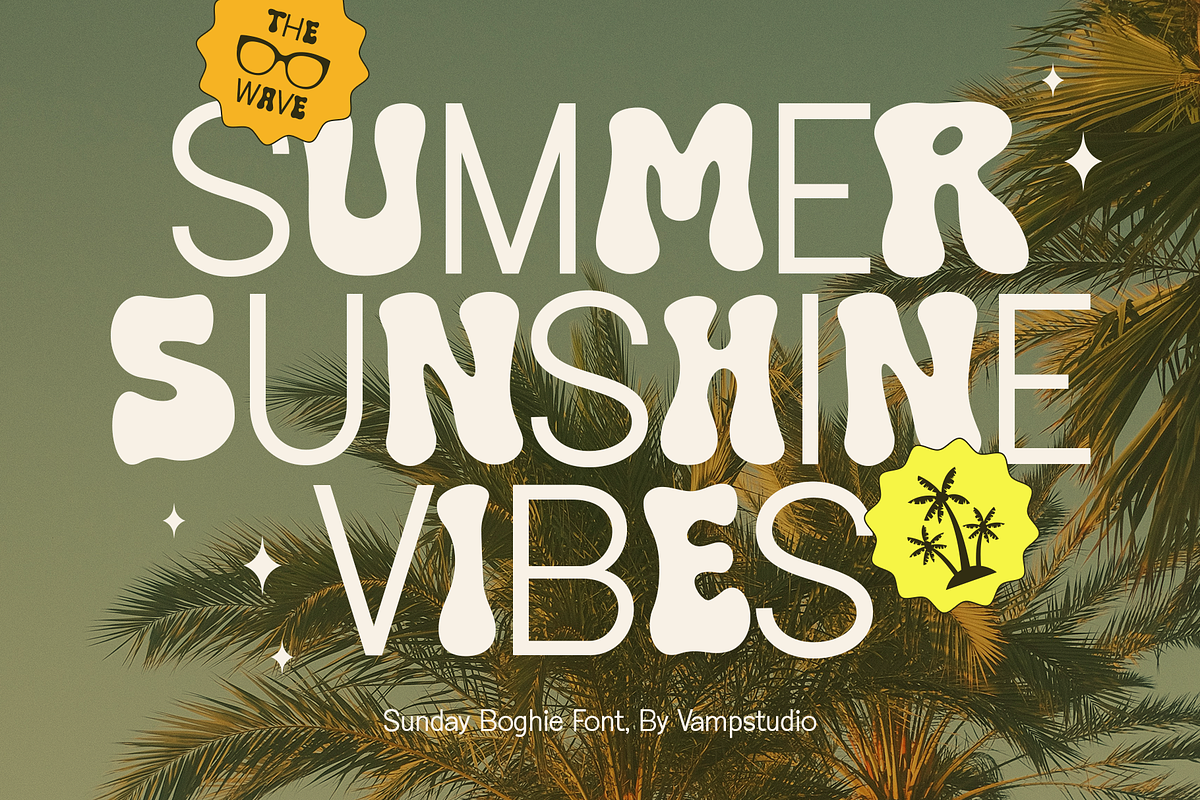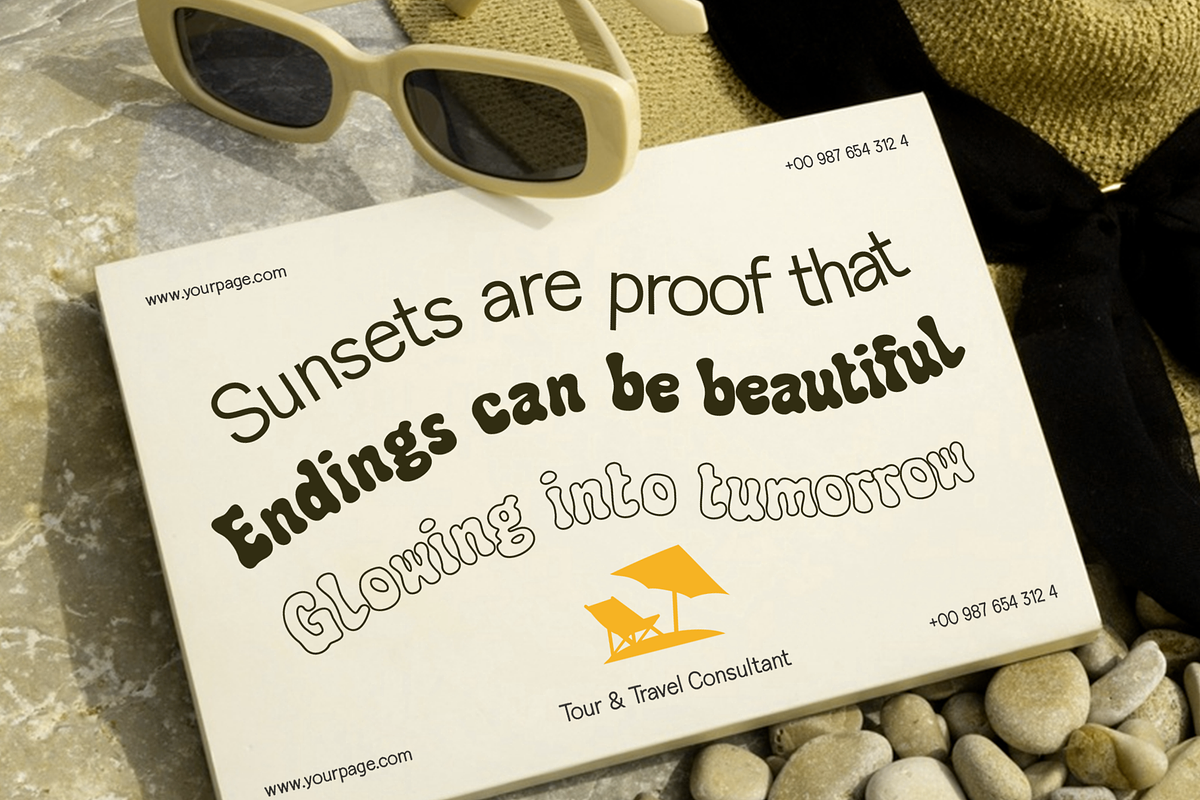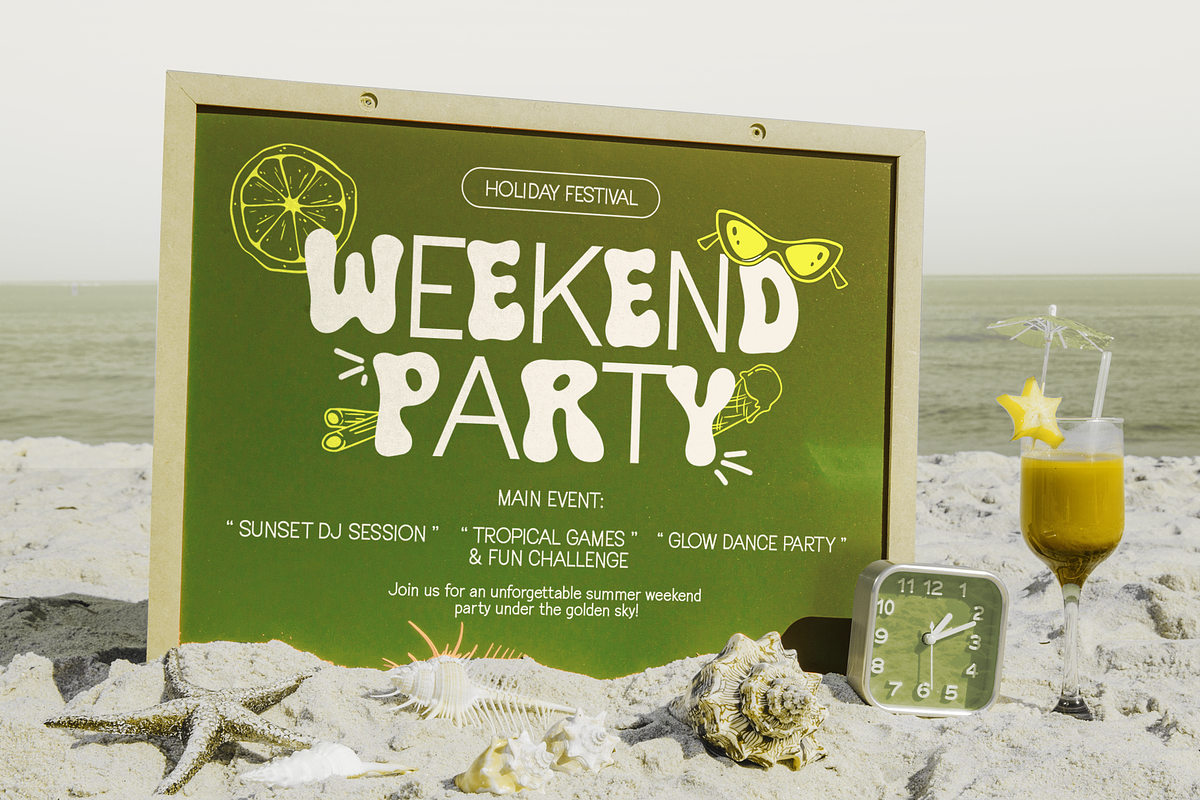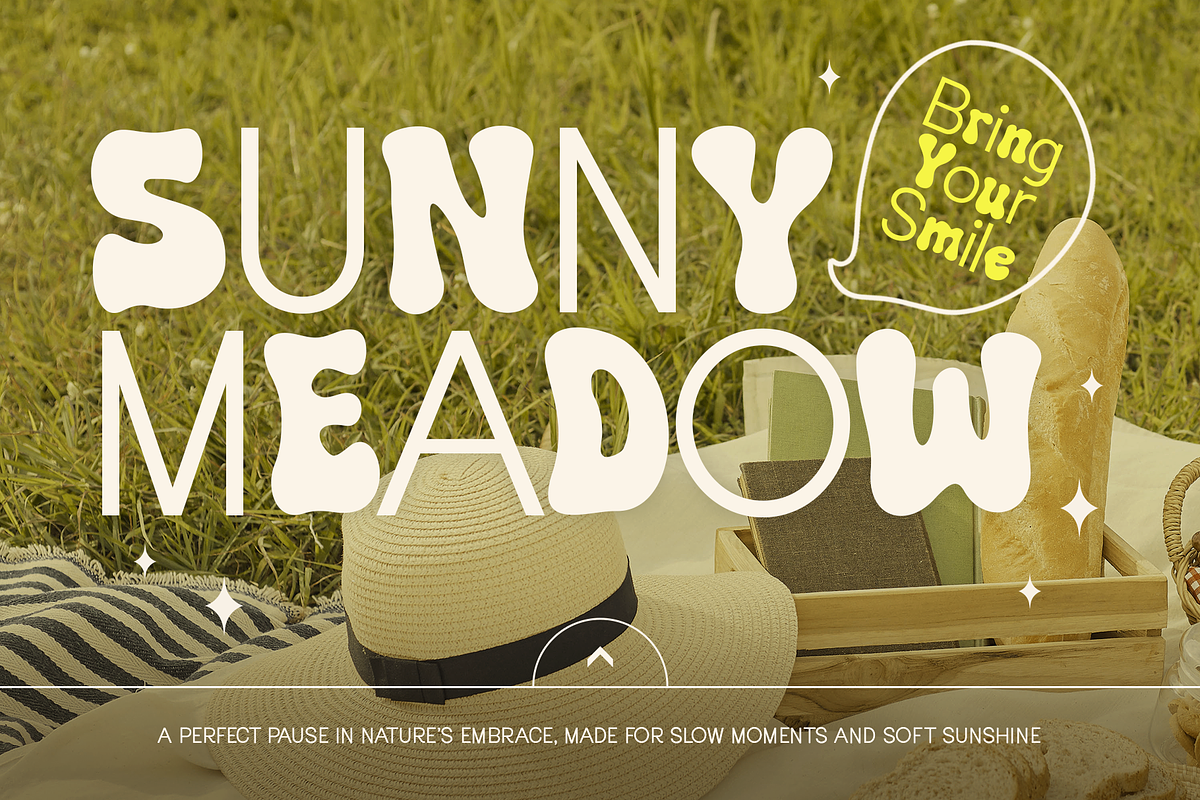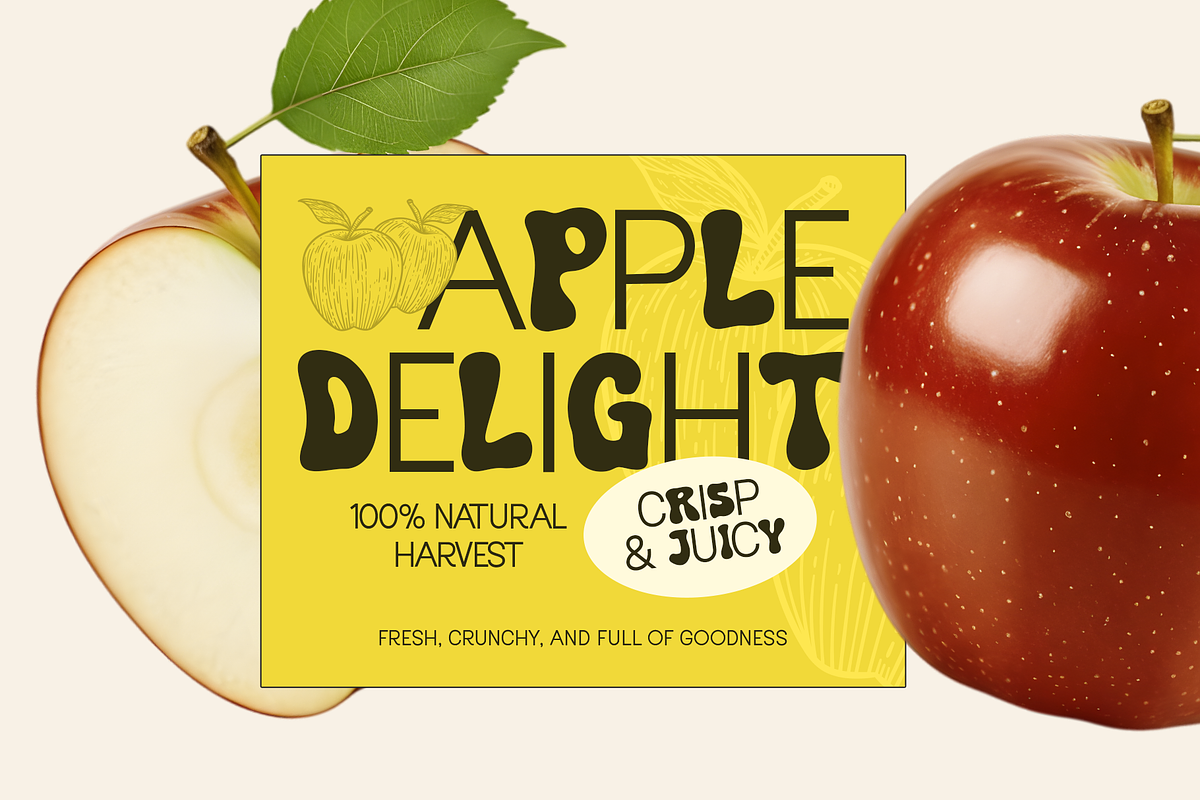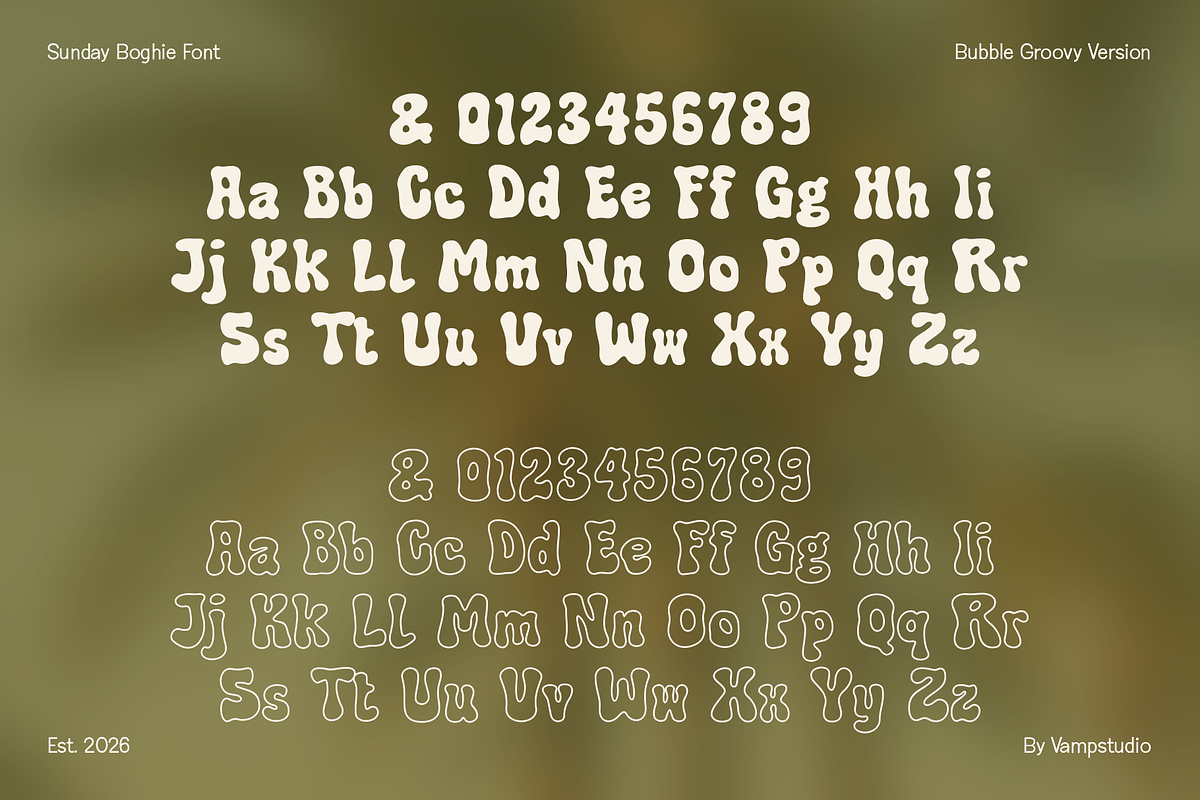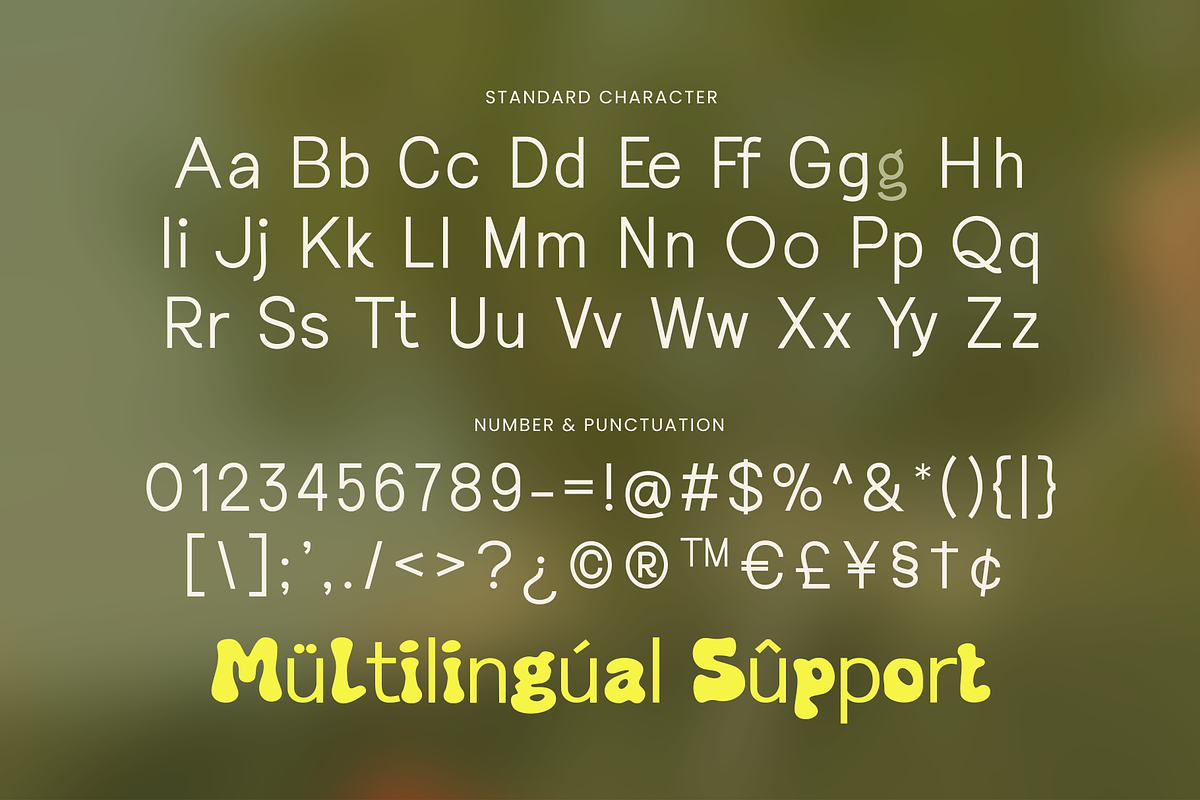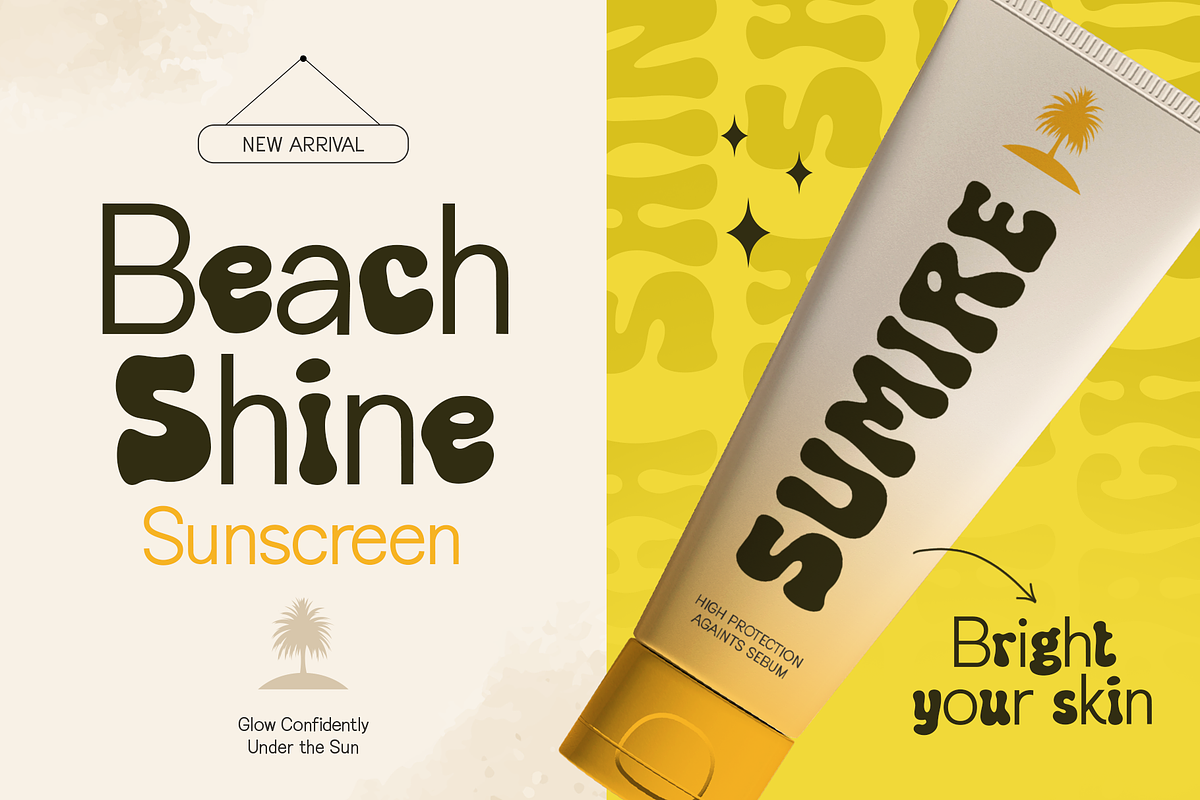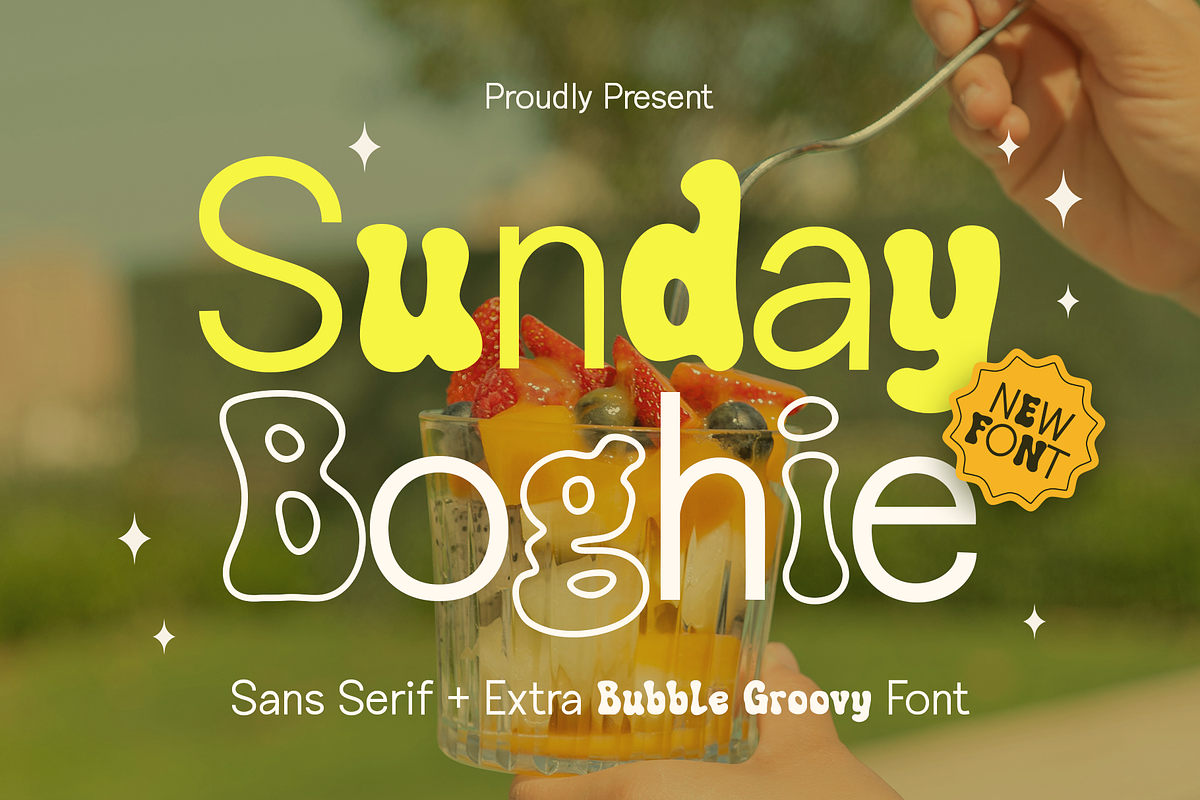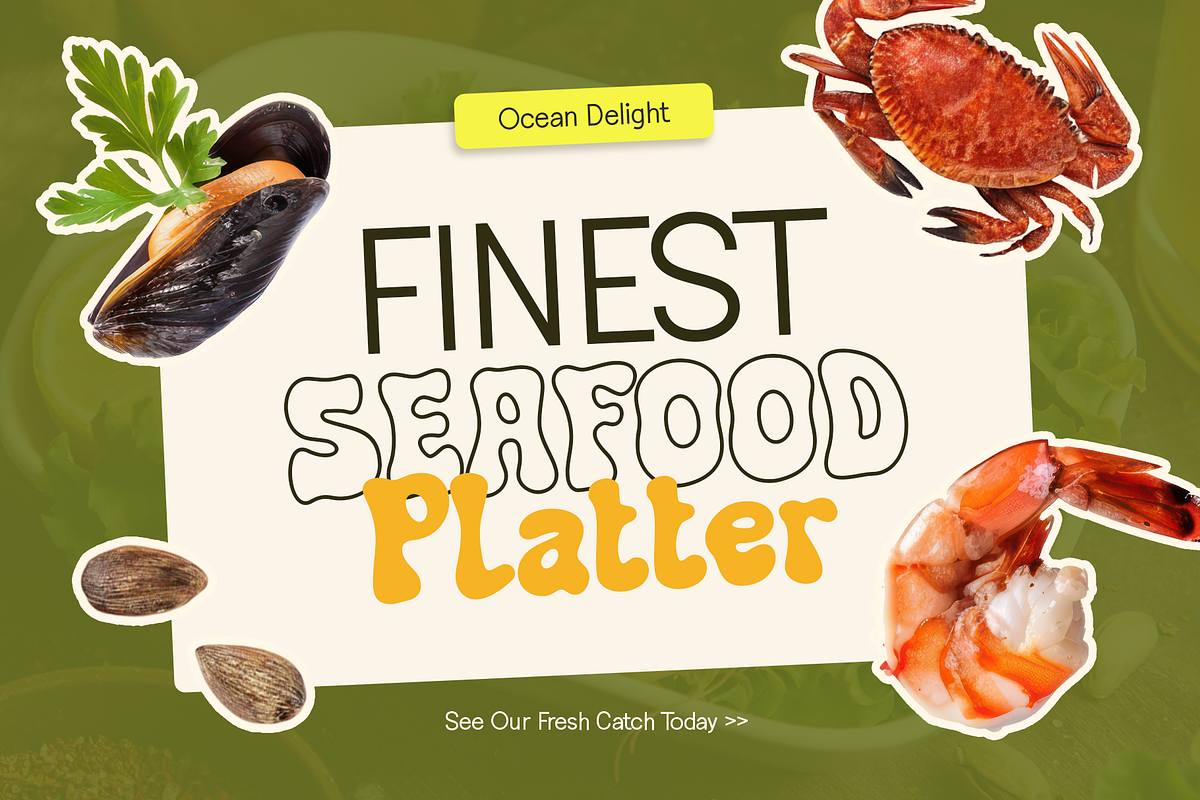
Sunday Boghie – Experimental Sans
Sunday Boghie is a versatile font duo combining a clean modern sans serif with a bold groovy bubble style. Designed to deliver fun, warmth, and retro personality, this typeface is perfect for standout headlines and playful branding projects.
The combination of smooth minimal letterforms and chunky bubble shapes allows you to create eye-catching typography with strong character. Whether you're working on summer campaigns, food branding, or vibrant social media graphics, Sunday Boghie brings a fresh and cheerful vibe to your designs.